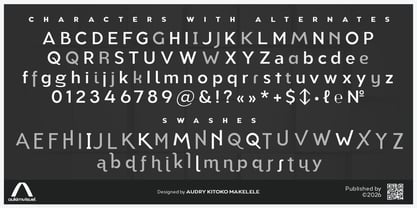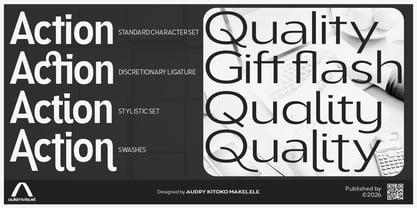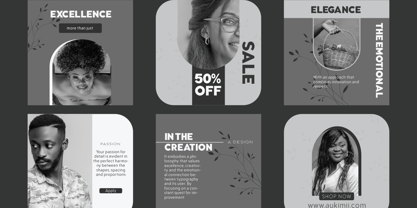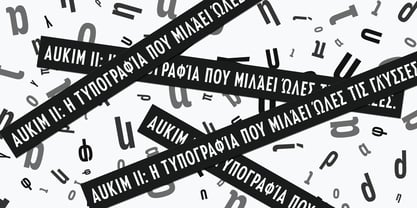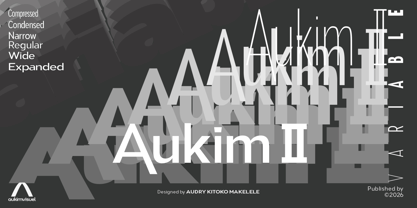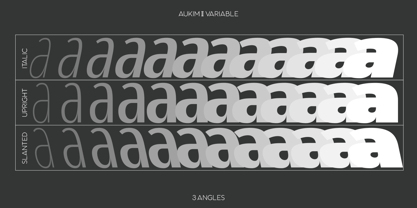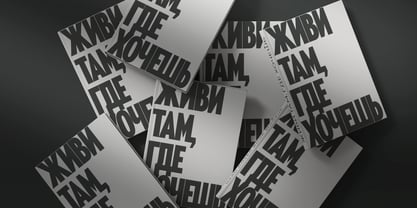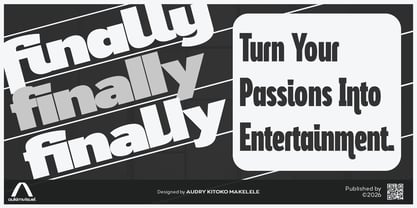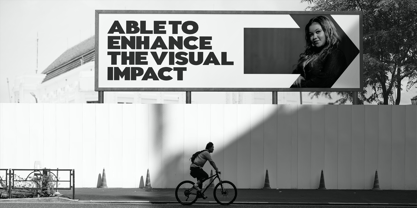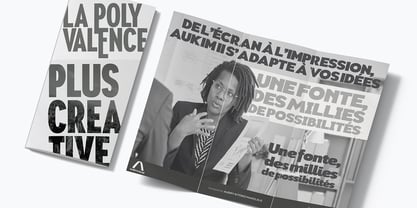
Aukim II Variable
Die Schriftfamilie Aukim II Variable wurde von Audry Makelele entworfen und von AukimVisuel veröffentlicht. Aukim II Variable enthält 3 Stile und Familienpaketoptionen. Mehr über diese Familie
Aukim II Variable represents the advanced iteration of the Aukim II family, expertly crafted to harness the full potential of variable fonts. It maintains the geometric and humanist design of the original while evolving into a dynamic system where weight and width axes can be adjusted continuously. This innovative flexibility empowers designers to customize the typeface with unmatched precision, eliminating the need for multiple static files. Visually, Aukim II Variable provides a smooth transition across the family’s extremes: from Thin to ExtraBlack, Compressed to Expanded, and Normal to Slanted. Each interpolation is meticulously optimized to uphold formal consistency and legibility, ensuring a cohesive appearance at any point along the axes. This typographic continuity grants the typeface remarkable versatility, making it suitable for both digital interfaces and print publications. On a technical level, Aukim II Variable boasts extensive language support (Latin, Cyrillic, Greek) with 2,401 glyphs, enhanced by advanced OpenType features such as ligatures, alternates, small caps, fractions, and localized variants. Kerning and hinting have been fine-tuned to guarantee optimal performance across all platforms, while the variable structure minimizes file sizes and enhances loading speeds on the web. In practical applications, Aukim II Variable is tailored for design studios, branding agencies, publishers, and product teams. It excels in creating visual identities, multilingual user interfaces, editorial publications, and wayfinding systems. With its diverse range of weights, adjustable widths, three angles, and comprehensive OpenType features, it serves as a versatile tool for professional projects that demand consistency, expressiveness, and technical robustness. Choosing Aukim II Variable signifies an investment in a reliable, flexible, and high-performance typeface that can elevate the visual impact and perceived value of your projects.